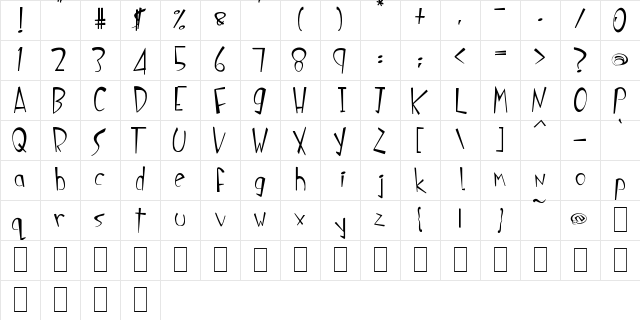
Splinky Regular
Foundry: Chris Brown (visual design)
Designer: Chris Brown
Design Context for Splinky
Splinky is a composed and adaptable typeface that performs quietly and consistently across a wide range of design contexts.